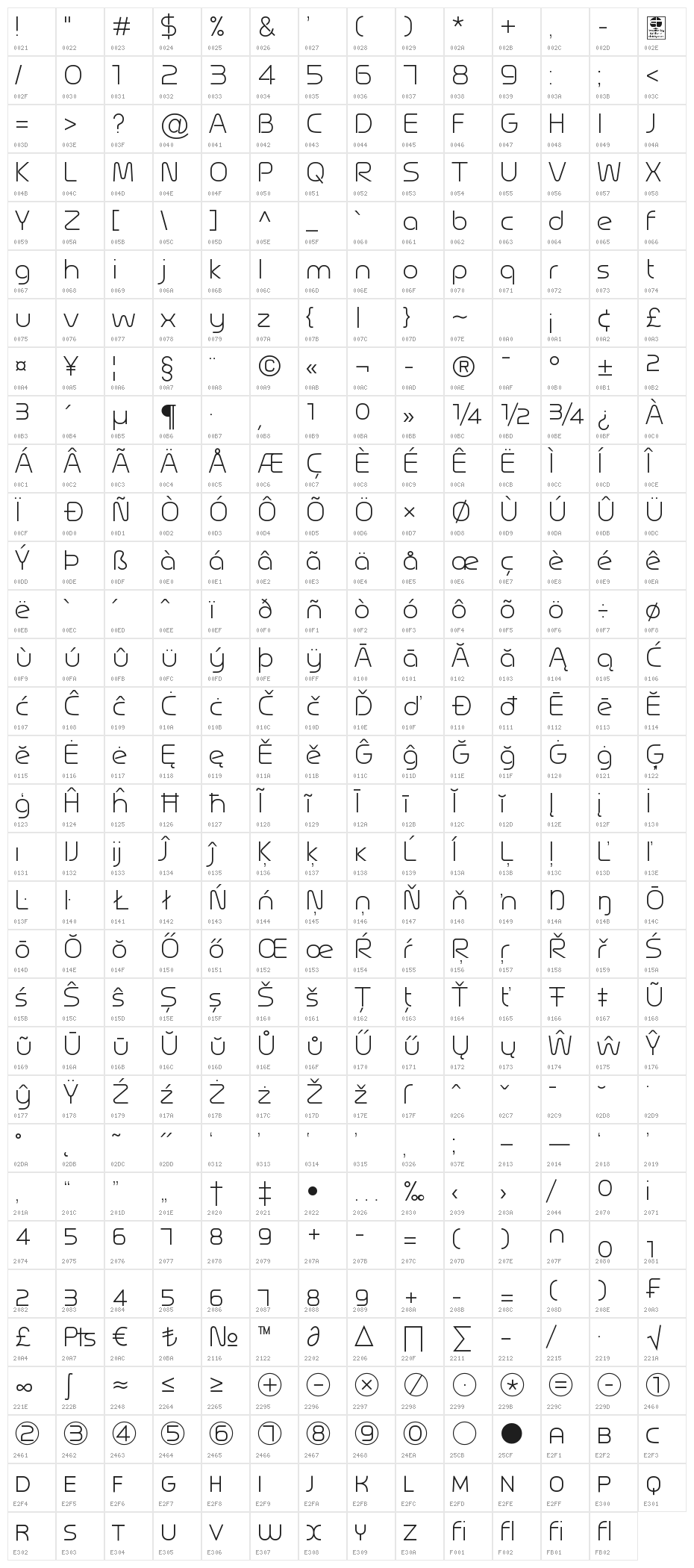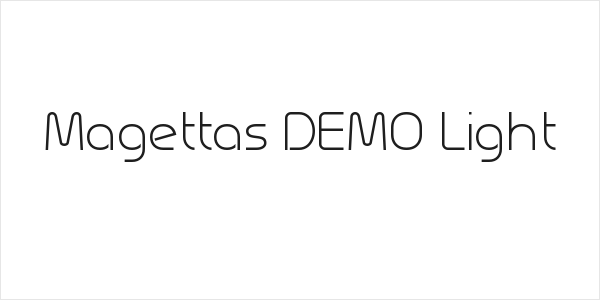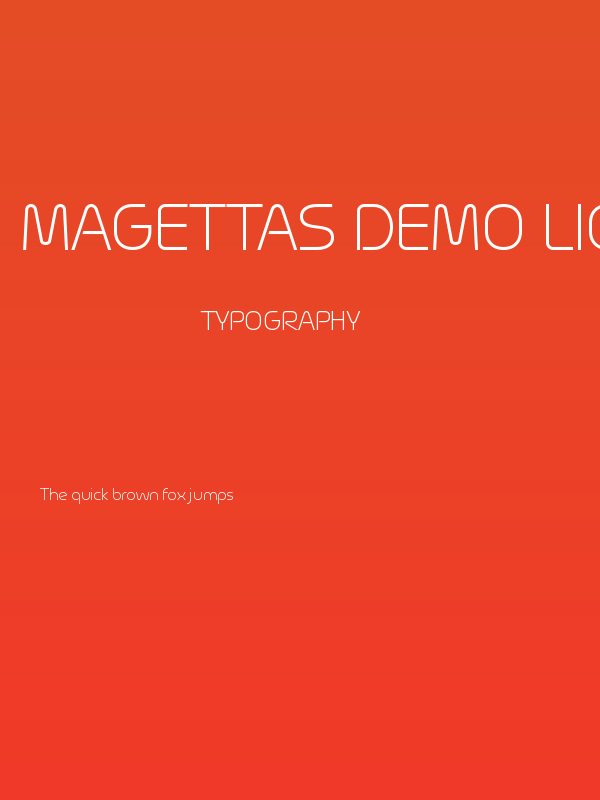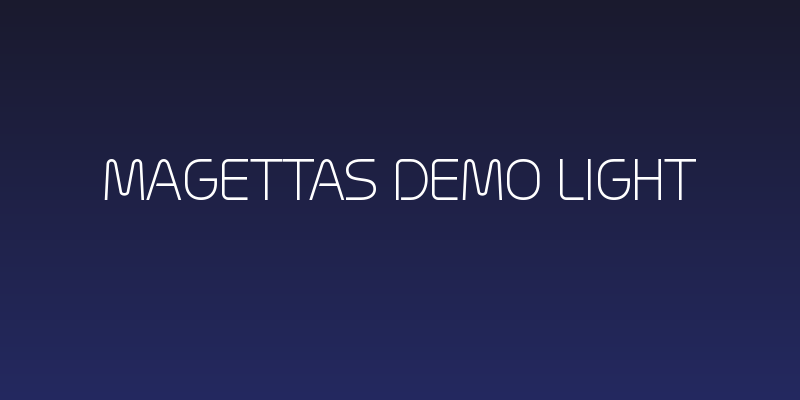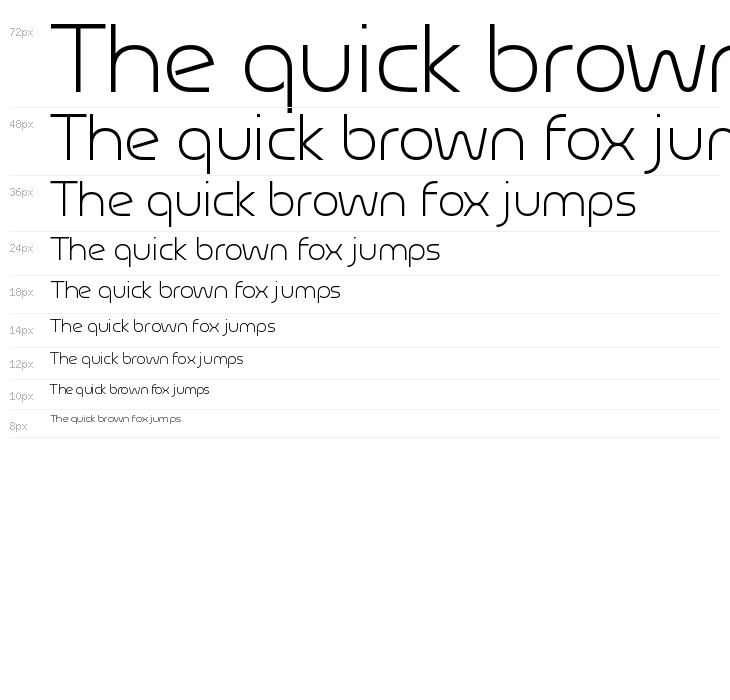
Magettas DEMO Light Font
Magettas DEMO Light Description
This font features a sleek, modern design with clean lines and a geometric structure. The characters are evenly spaced, providing a balanced and harmonious appearance. The uppercase letters are bold and assertive, while the lowercase letters maintain a consistent flow with rounded edges. Numbers are clear and legible, making them suitable for various applications. Special characters are distinct and integrate seamlessly with the overall style, enhancing the font's versatility. Its minimalist aesthetic makes it ideal for contemporary design projects.